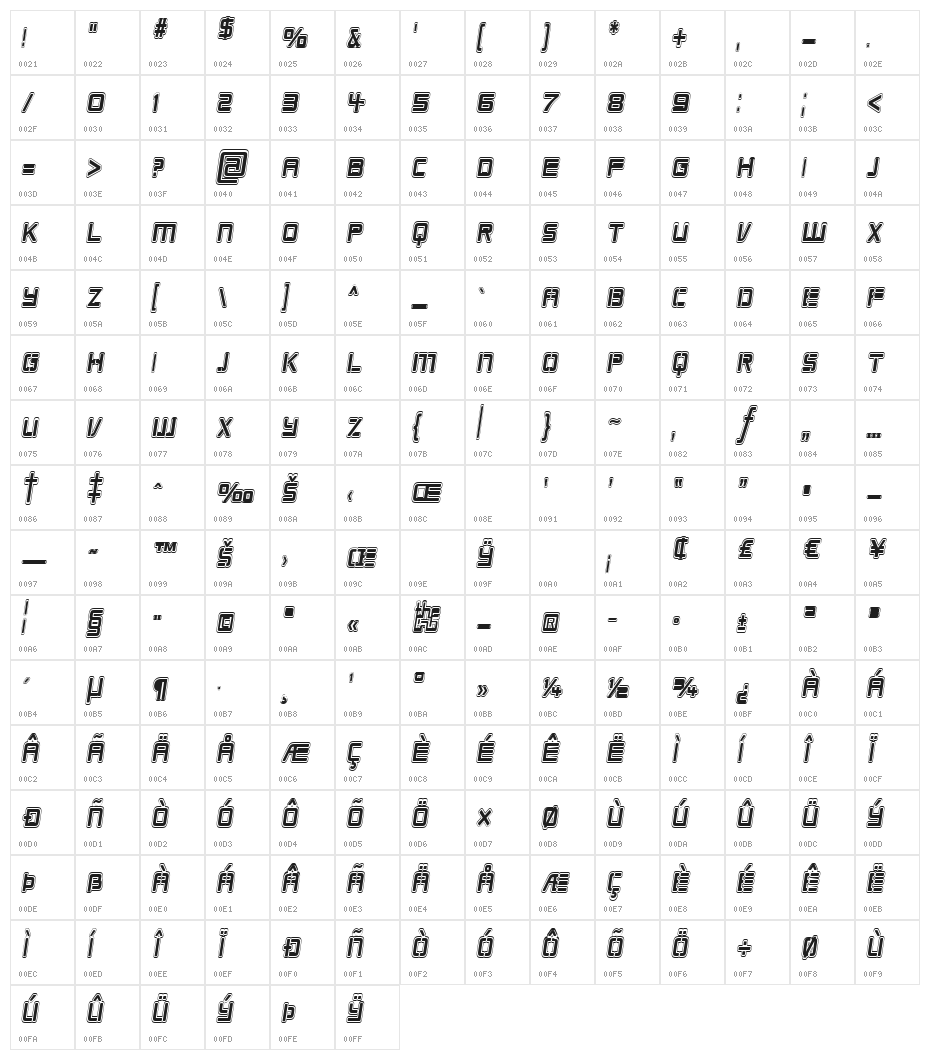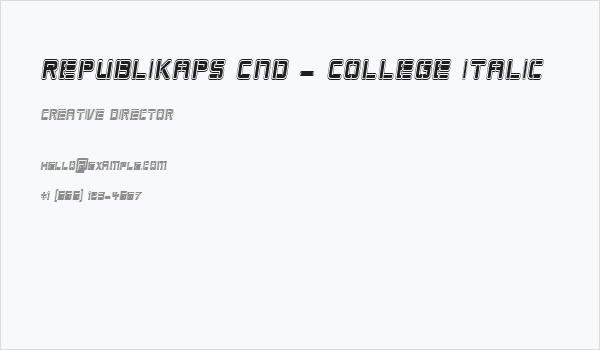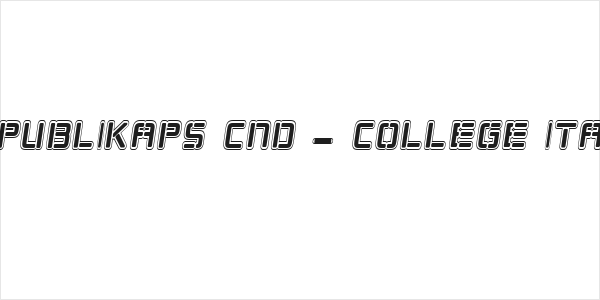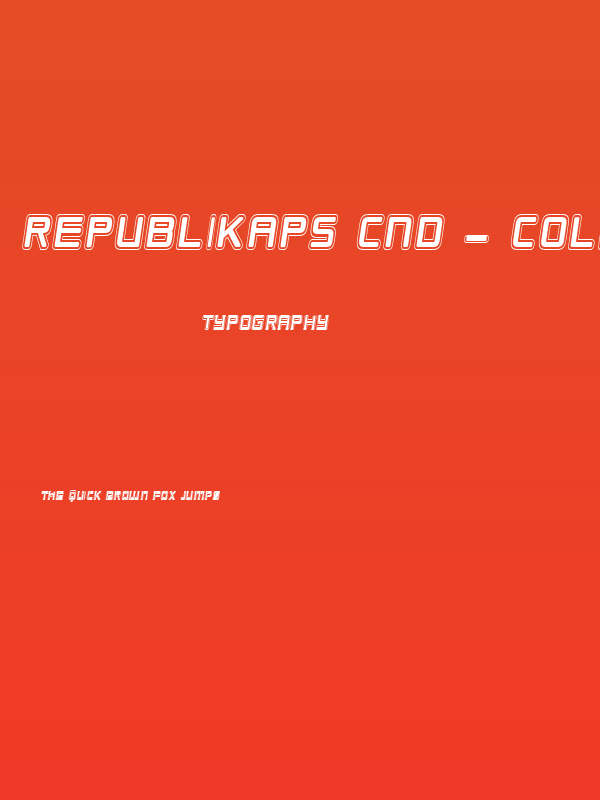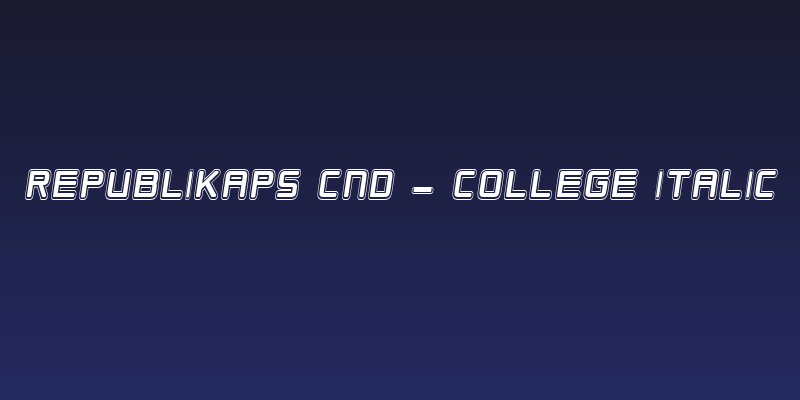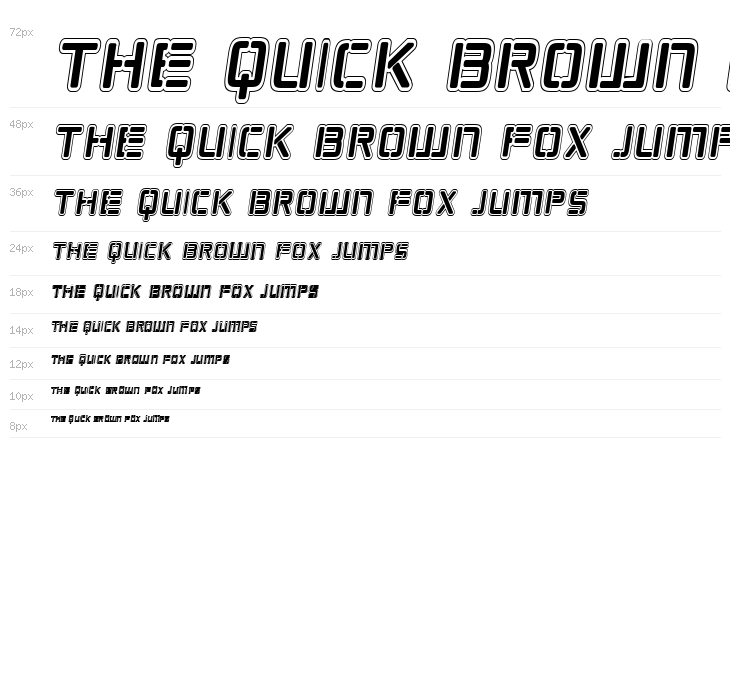
Republikaps Cnd - College Italic Font
Republikaps Cnd - College Italic Description
This font features a bold, collegiate style with a condensed structure and italicized slant. The characters are outlined, providing a three-dimensional effect that enhances their visibility and impact. The uppercase and lowercase letters maintain a consistent style, with clean lines and a modern aesthetic. The numerals and special characters are designed to match the overall theme, making them suitable for a variety of applications. The font's unique outline and italicized form give it a dynamic and sporty appearance, ideal for projects that require a bold and energetic typeface.
| Proposed Projects | Ideal for sports team branding, college event posters, athletic apparel designs, and dynamic logo creation. |